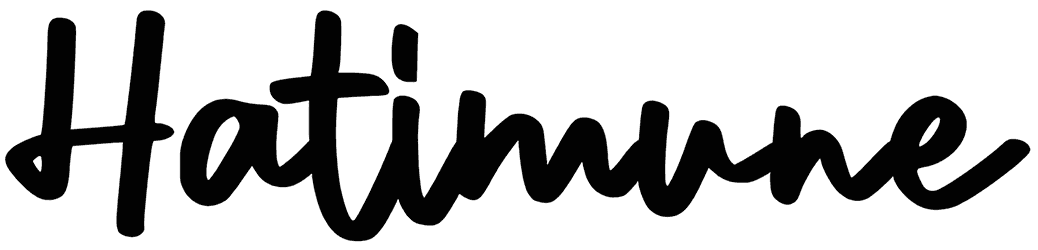
Hatimune Font
Hatimune font can give a cheerful and friendly makeover to your words. This script font has an approachable and distorted look and transfers a playful feeling to your readers. It is made with bold letters that are written with a thick marker haphazardly.
You can use this marker font for cartoon and comedy movie titles, channel banners, magazines, advertisements, gaming, and comic books. All of the characters will adopt a continuous style when written in words.